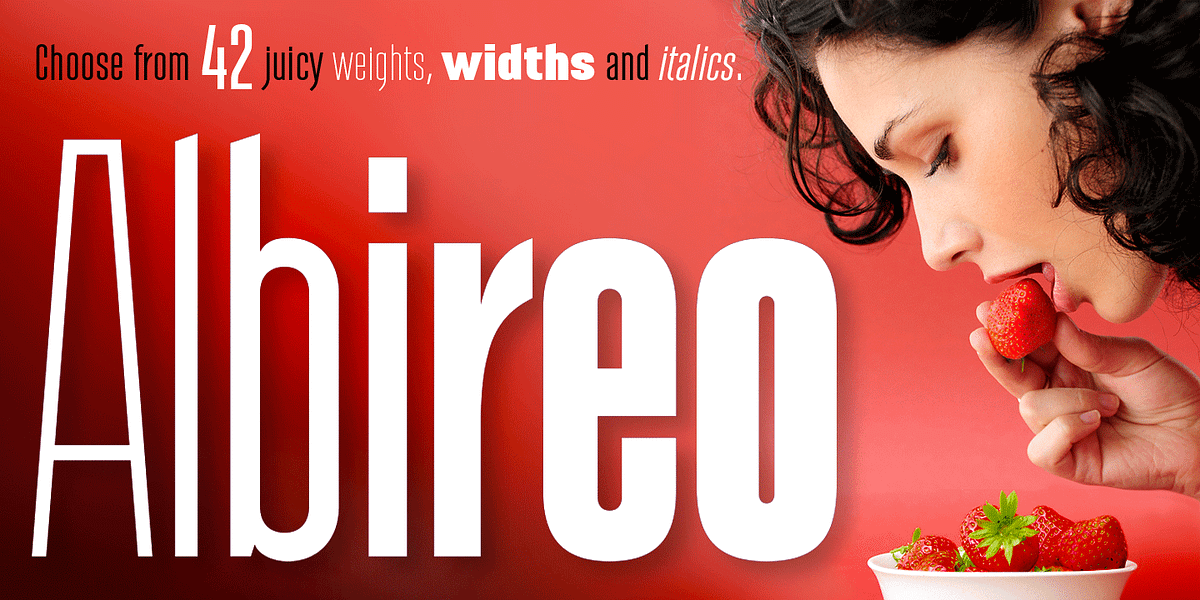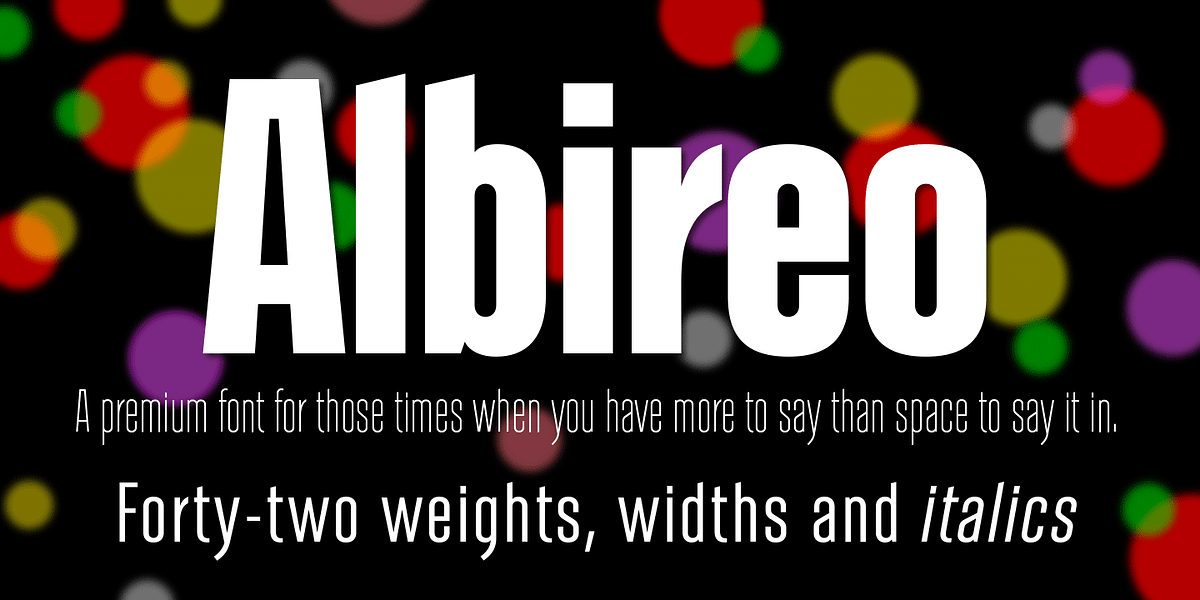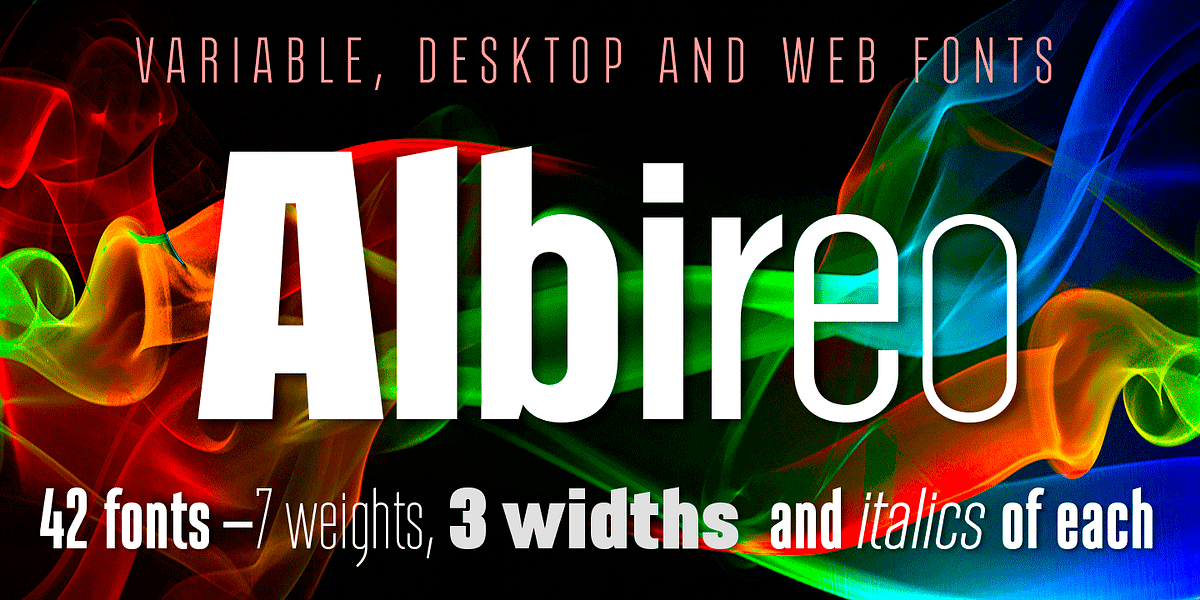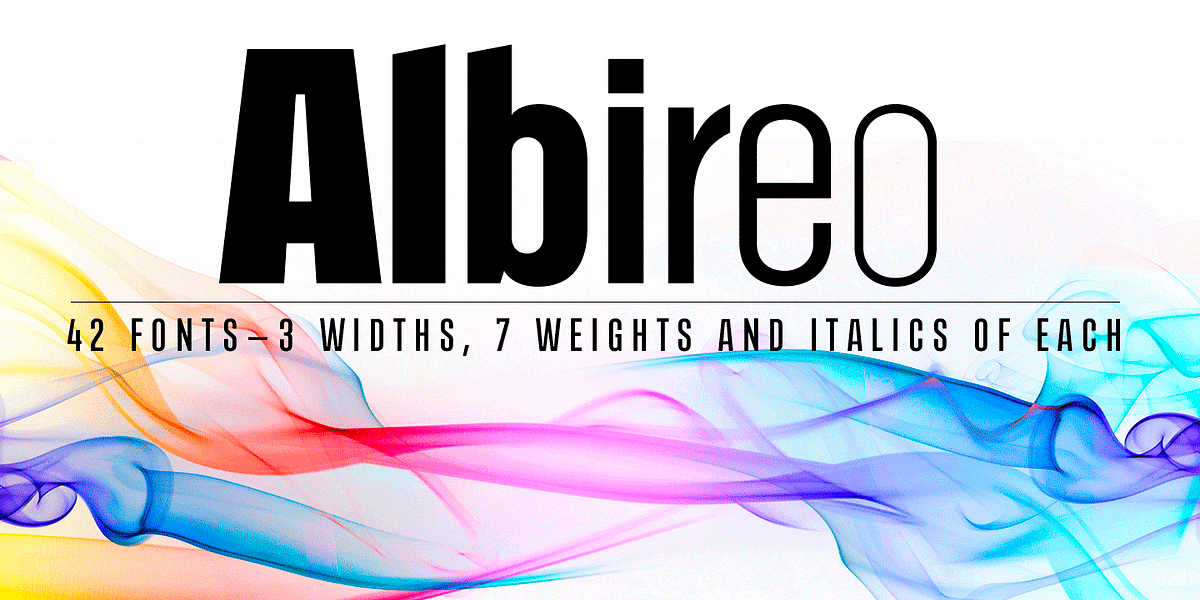
Albireo
Albireo is a condensed neo-humanist sans serif typeface designed for versatility and impact. It boasts 42 weights and widths, offering extensive control over typographic styling. The design was inspired by space exploration, referencing the binary star Albireo with its contrasting colors. This font excels in display applications like headlines and subheadings, making it suitable for magazines, brochures, posters, newspapers, flyers, and web design.